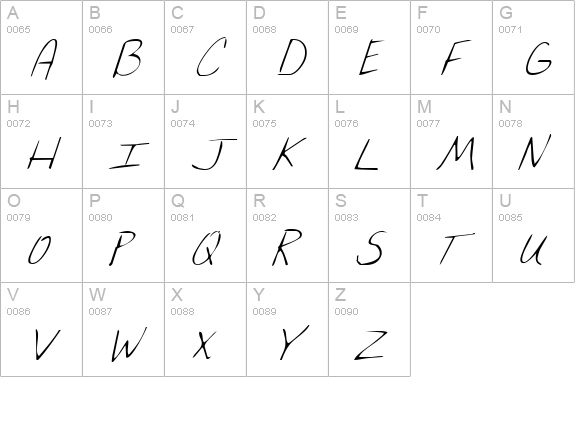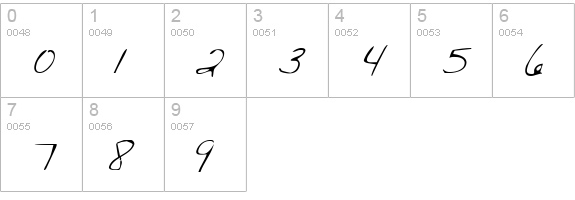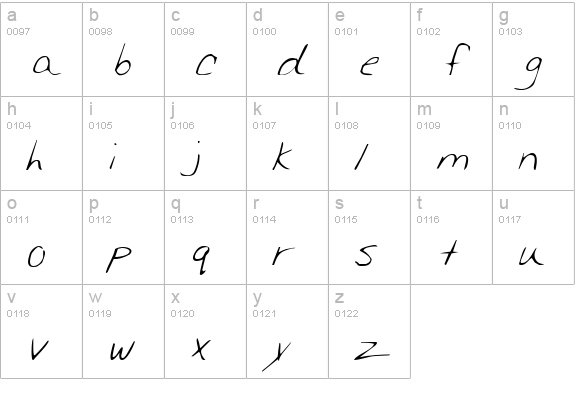
Merri Christina Italic Font Details
Merri Christina Italic is a distinctive, italic variant in the Merri typeface family \xE2\x80\x94 well suited to design and typography projects.
Merri Christina Italic is a stunning and elegant font that exudes sophistication and style. With its delicate curves and graceful letterforms, this font is perfect for adding a touch of class to any design project. Whether you're creating invitations, logos, or branding materials, Merri Christina Italic is sure to make a lasting impression. And the best part? This beautiful font is available for free download at FontsMarket.com. So go ahead and elevate your designs with Merri Christina Italic today!